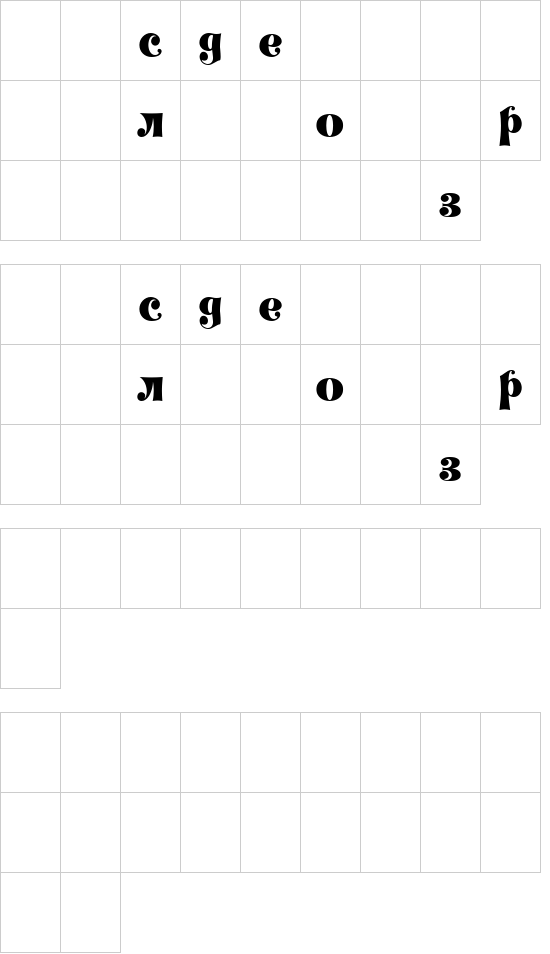
Decorlz is a decorative serif face, with ornamental detailing and broad foreign-language support. The strokes carry traditional serif structure dressed with embellishment, giving the alphabet a classic, formal character that reads refined across many languages.
It works for elegant branding, formal invitations, vintage posters, and refined editorial headlines where embellished serif type and wide coverage both matter. The detailed forms read best at display sizes. Decorlz is free to download as a TrueType file, and you can preview it with your own text to see how the ornate serif letters render your language before downloading.